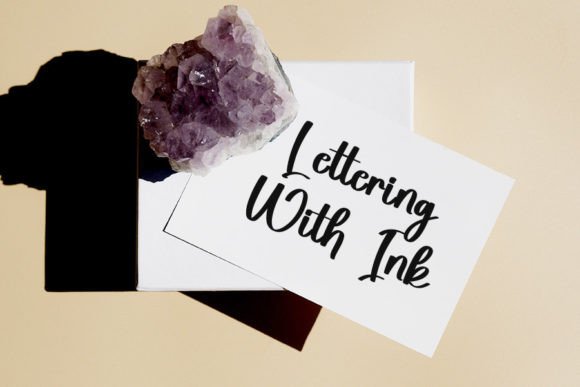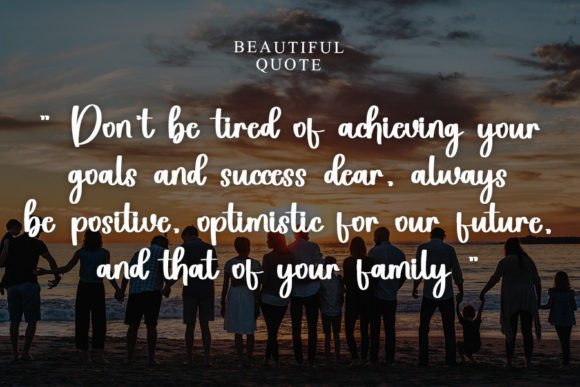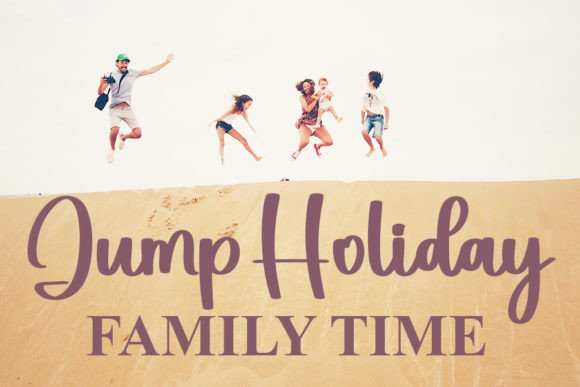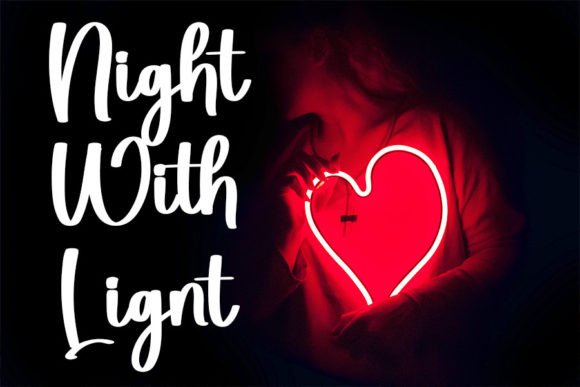
And You Font
About And You Font
And You font is a stylish sans serif typeface that blends modern trends with timeless classic typography influences. Its clean lines and impeccable form make it a versatile choice for designers aiming to create elegant and sophisticated visuals.
Contemporary Design with Classic Roots
Inspired by classic typography, And You font combines a modern atmosphere with a refined aesthetic. This balance ensures your designs stand out with a fresh yet professional look. The font’s sleek curves and balanced proportions offer excellent readability and visual appeal across various applications.
Ideal for Various Design Projects
The versatile nature of And You font makes it suitable for a wide range of creative uses, such as:
• Logos: Create memorable and stylish brand identities.
• Branding projects: Enhance your brand’s professionalism and elegance.
• Web and print design: Use it effectively in brochures, posters, websites, and more.
• Headlines and body text: Perfect for clear, clean communication in various contexts.
Why Choose And You Font?
If you want to add a touch of sophistication and contemporary charm to your designs, And You font is an excellent choice. Its elegant sans serif style ensures it fits well in both modern and classic design projects, making it a reliable and stylish addition to your font library.